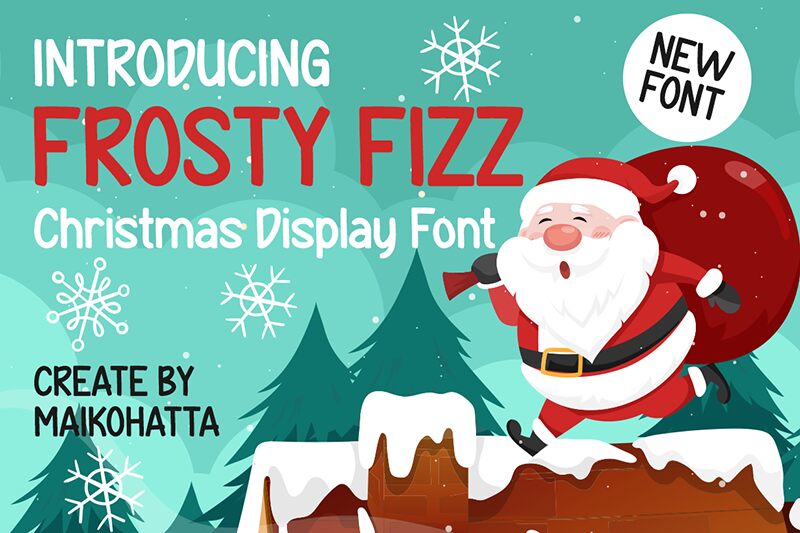
FROSTY FIZZ
Frosty Fizz font by Gilang Ternadho is a holiday Christmas font that brings a joyful and festive feel to every letter. The knees and elbows of the irregularly shaped characters are curvy while the outlines remain uneven. At the same time, the rough texture adds a touch of joy and fun while maintaining a slightly contemporary feel.